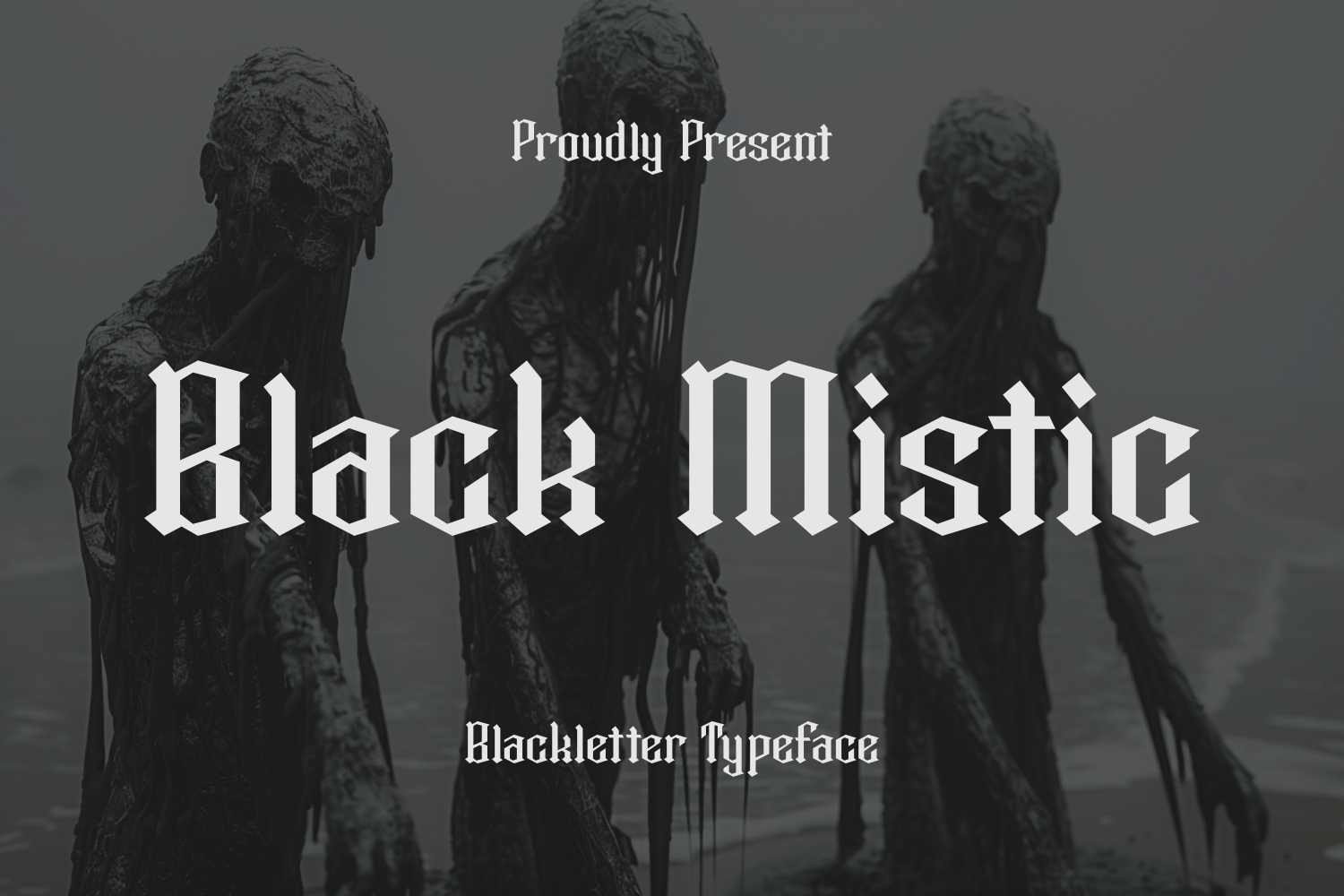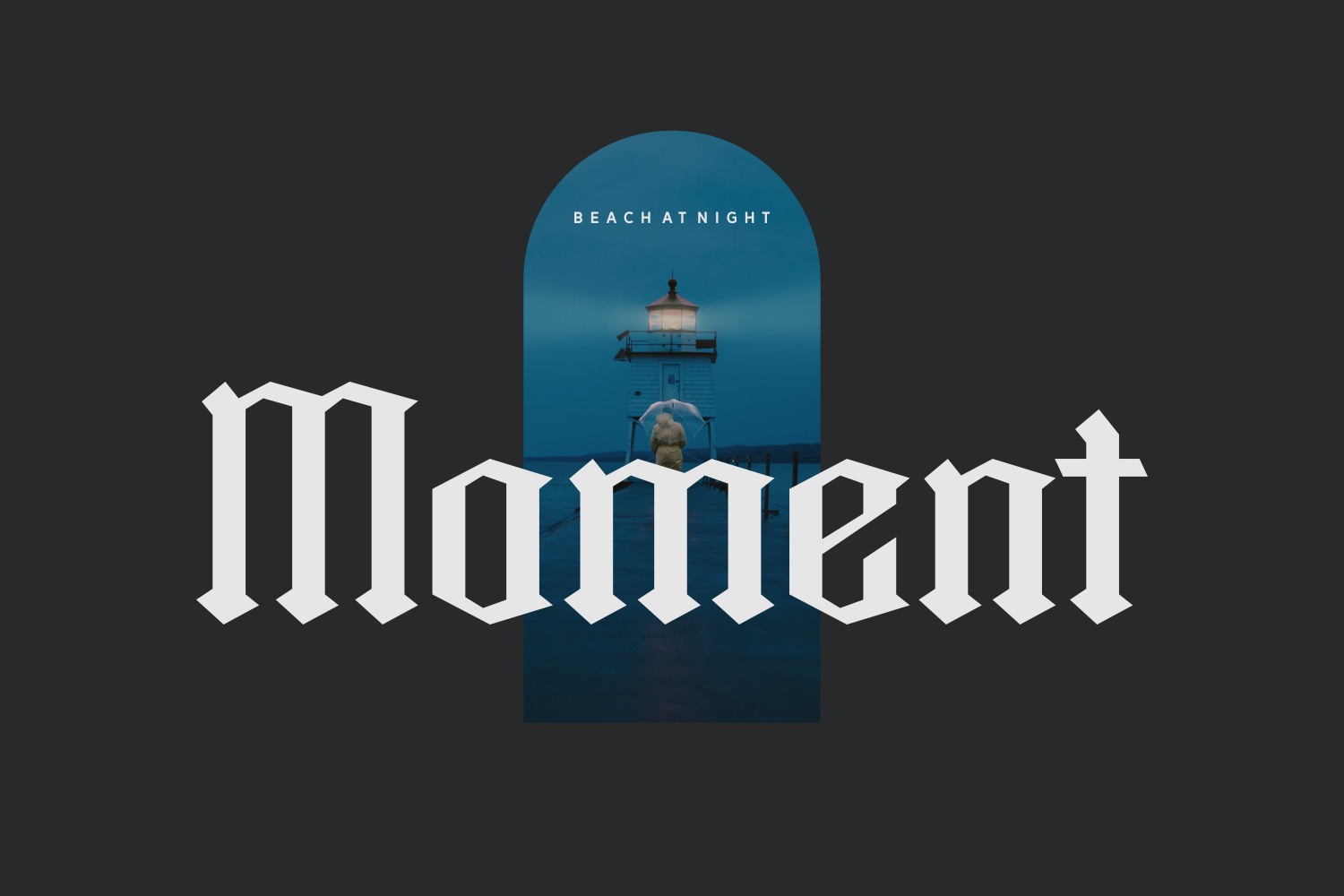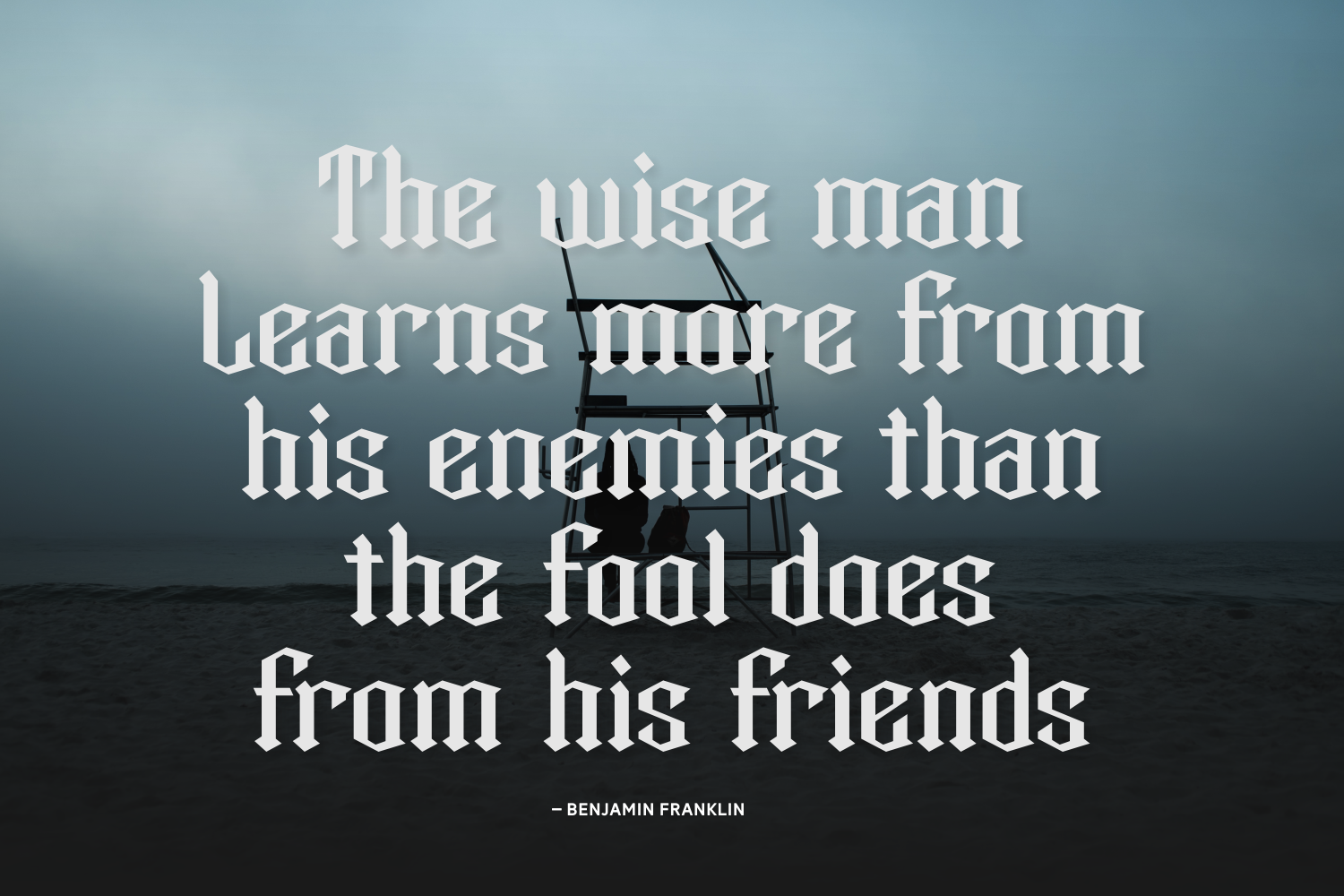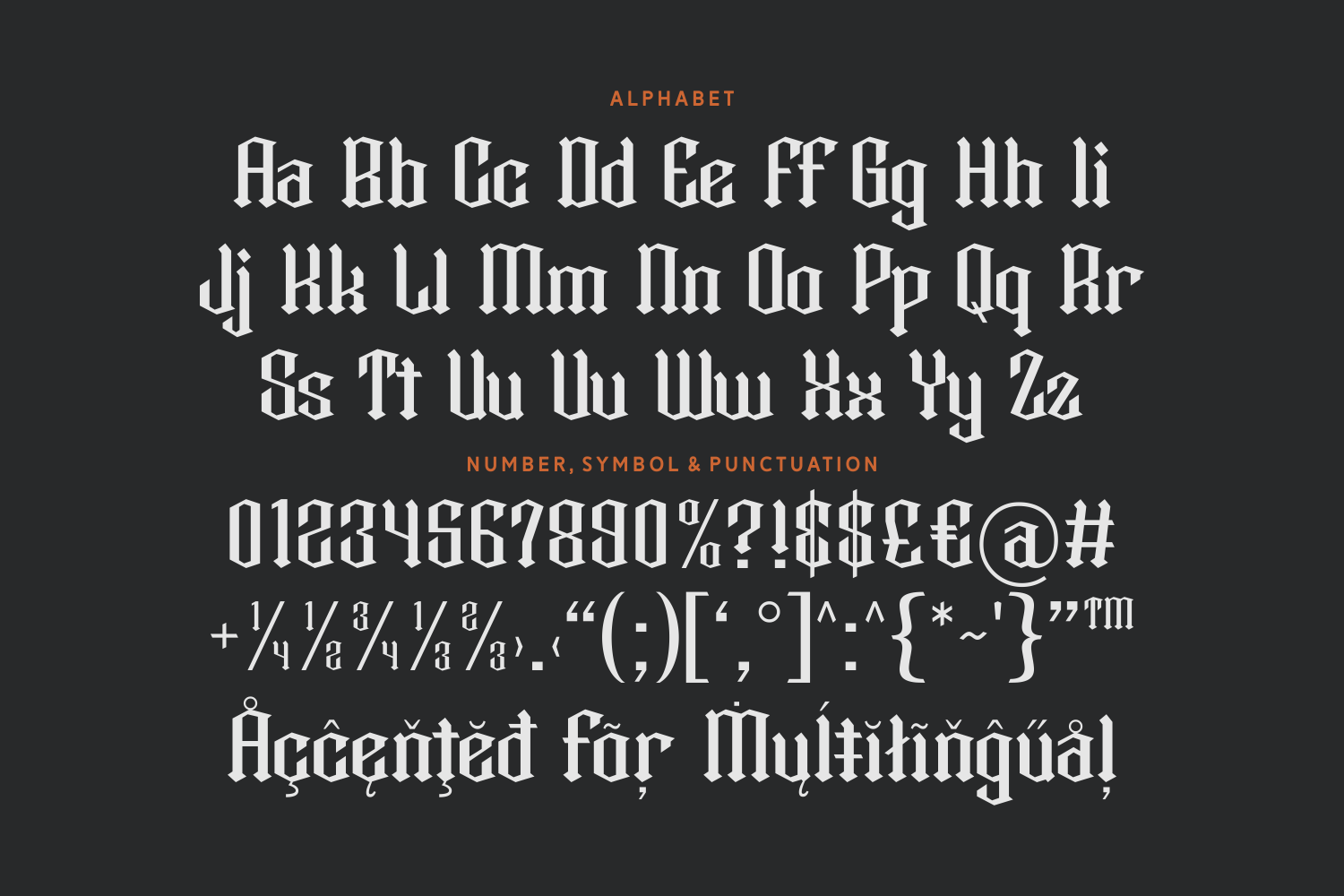
Black Mistic is a haunting blackletter typeface with sharp, angular edges and a dark, mysterious vibe. Ideal for horror movie posters, metal band logos, or macabre book titles, it channels a chilling, gothic atmosphere. Its medieval inspiration brings a timeless edge to any unsettling concept.